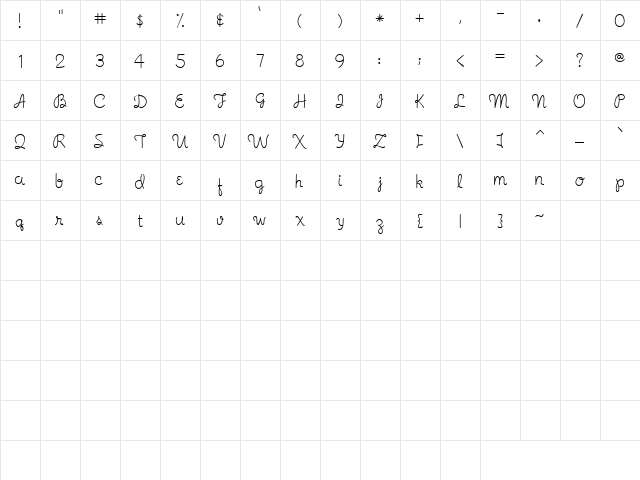
Doodle Noodle Regular
Design Context for Doodle Noodle Typeface
Doodle Noodle is a composed and adaptable typeface that performs quietly and consistently across a wide range of design contexts.